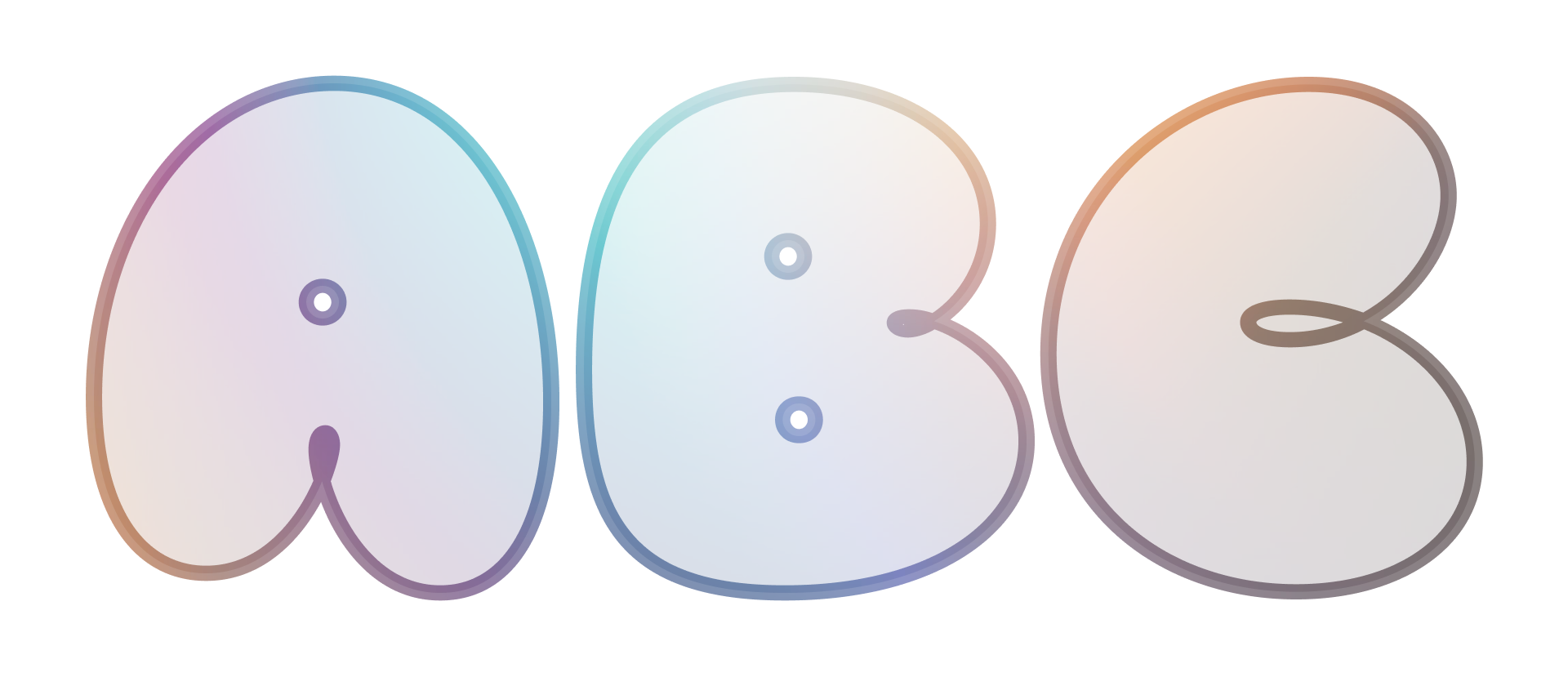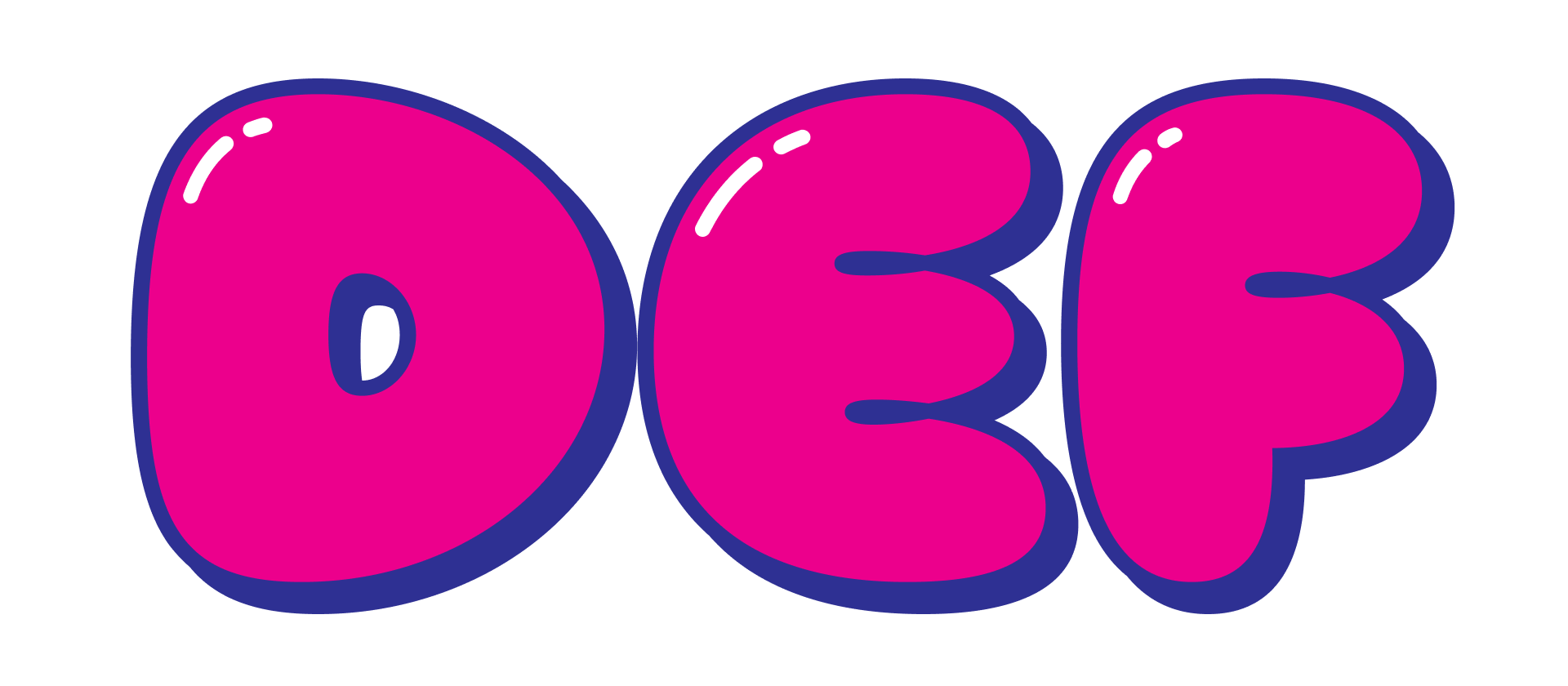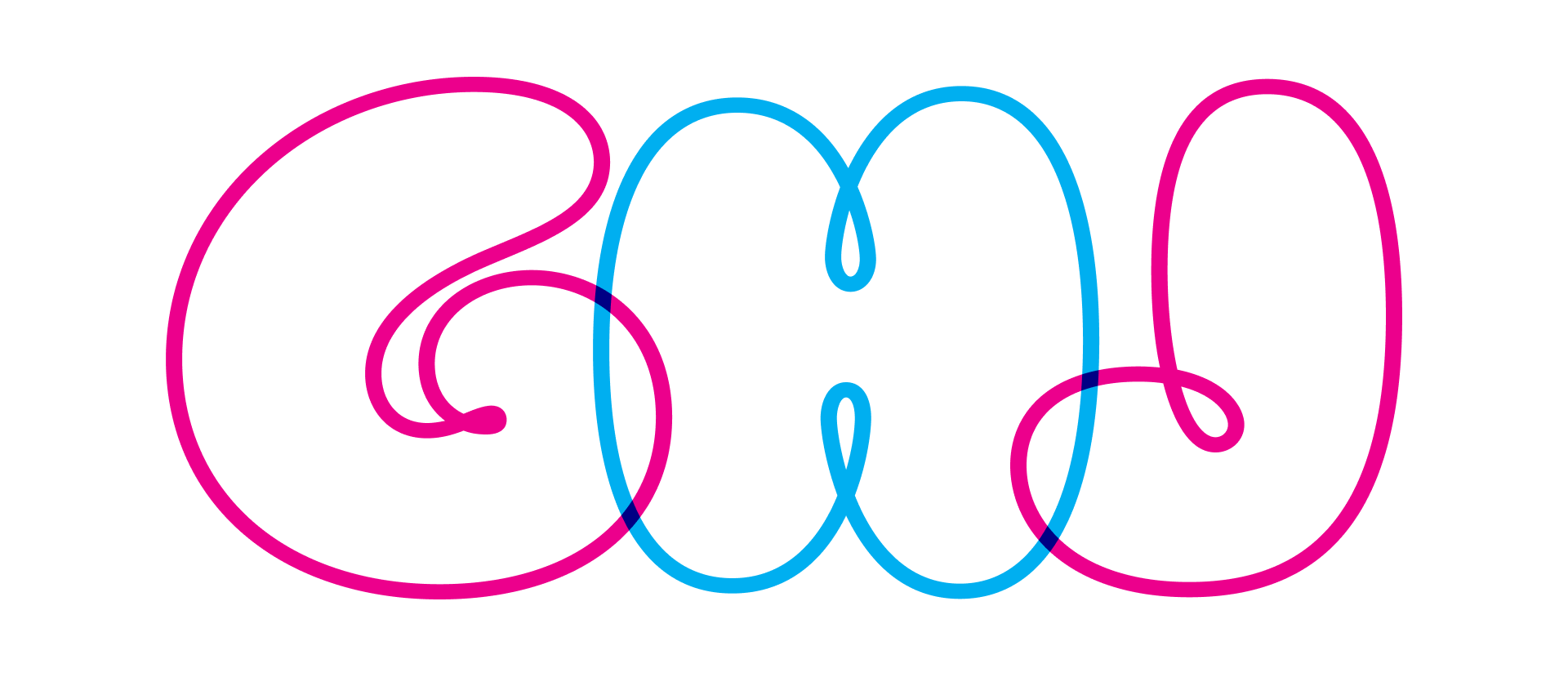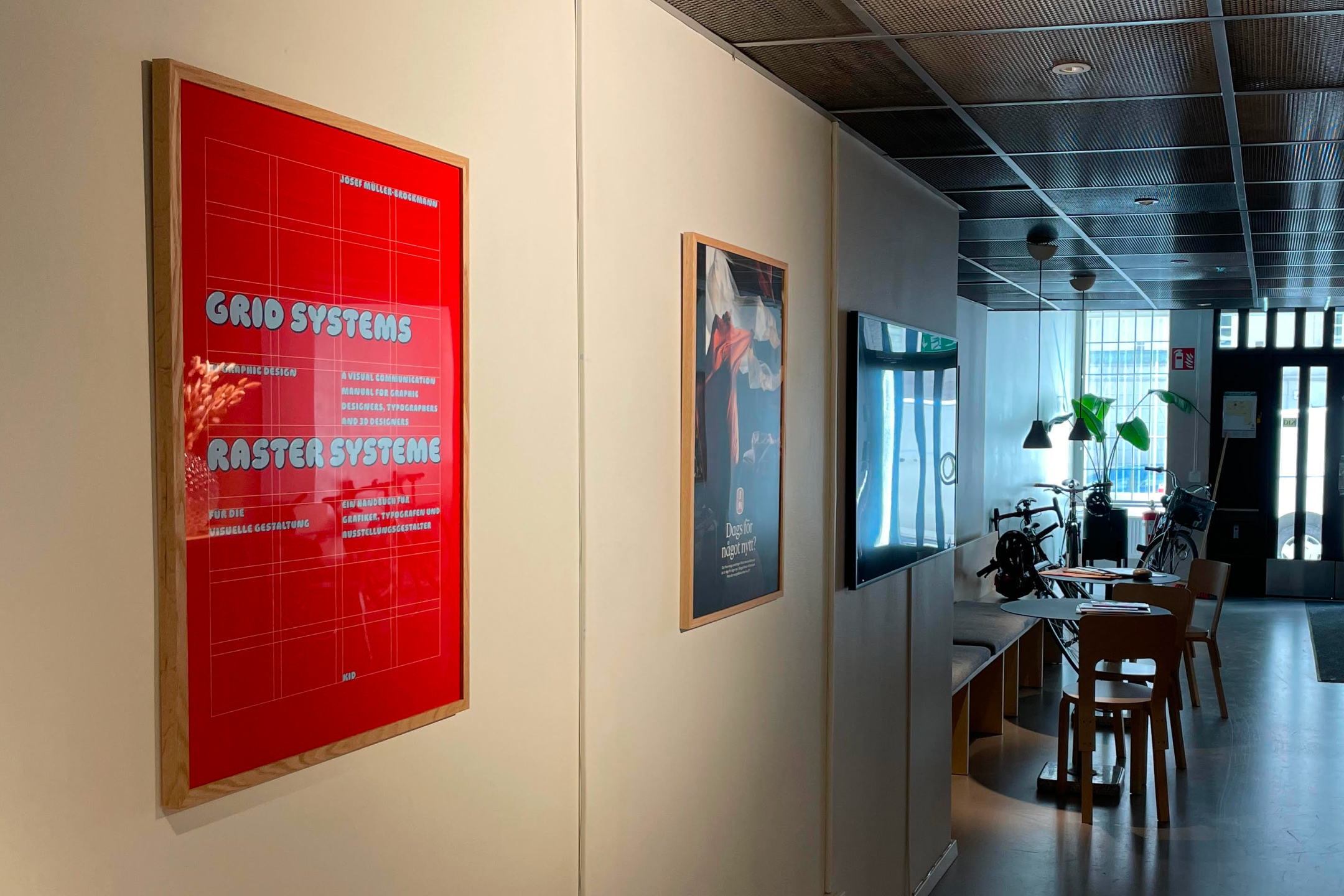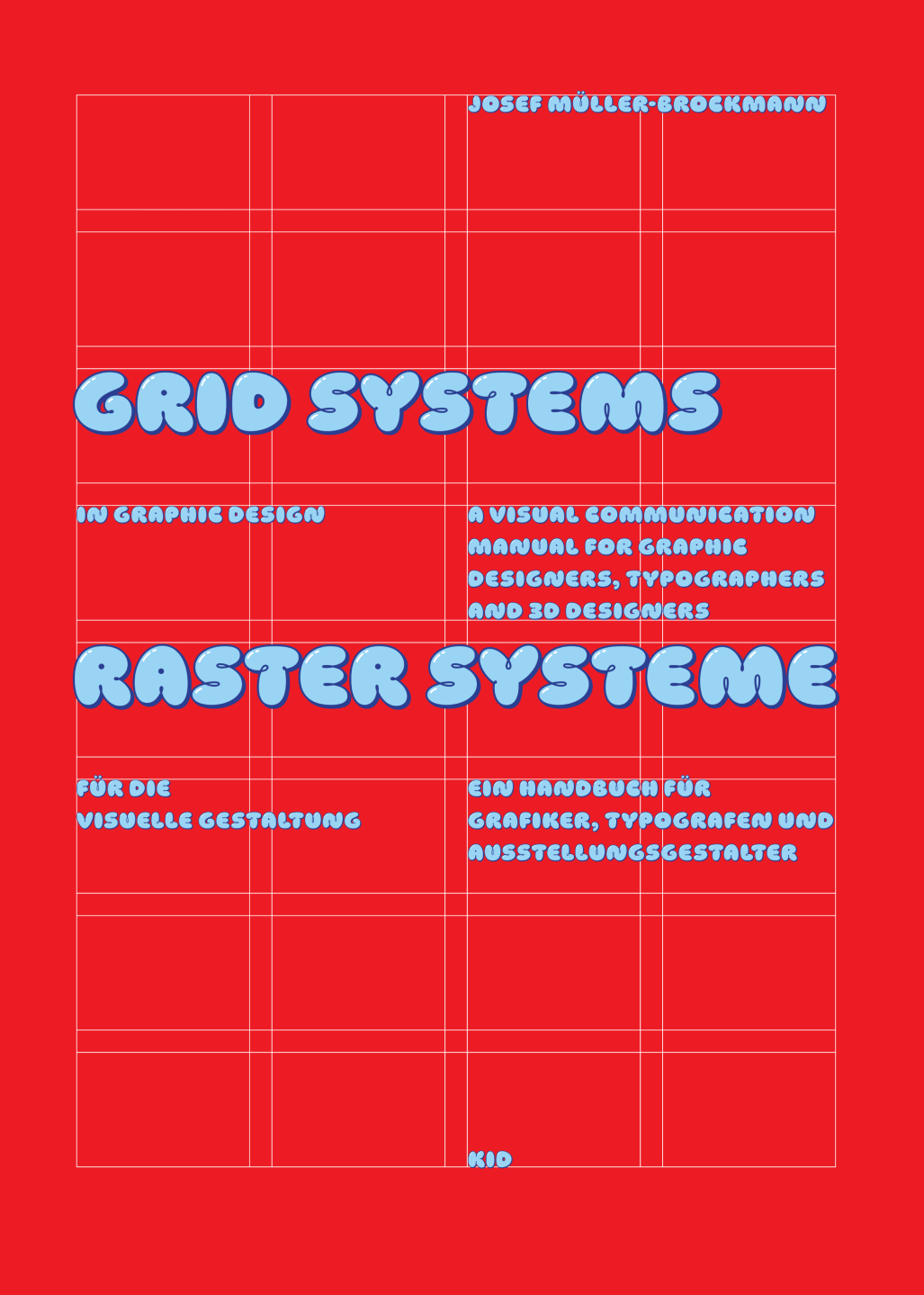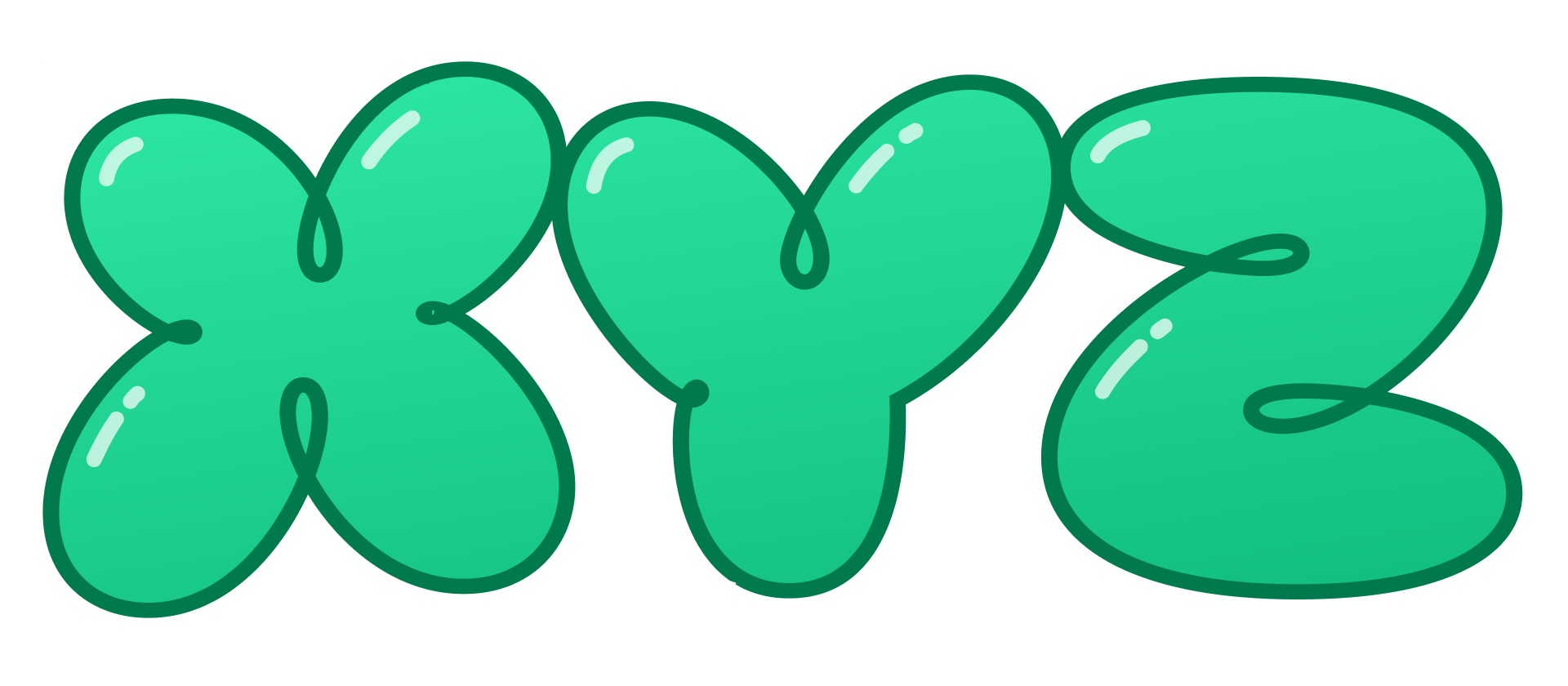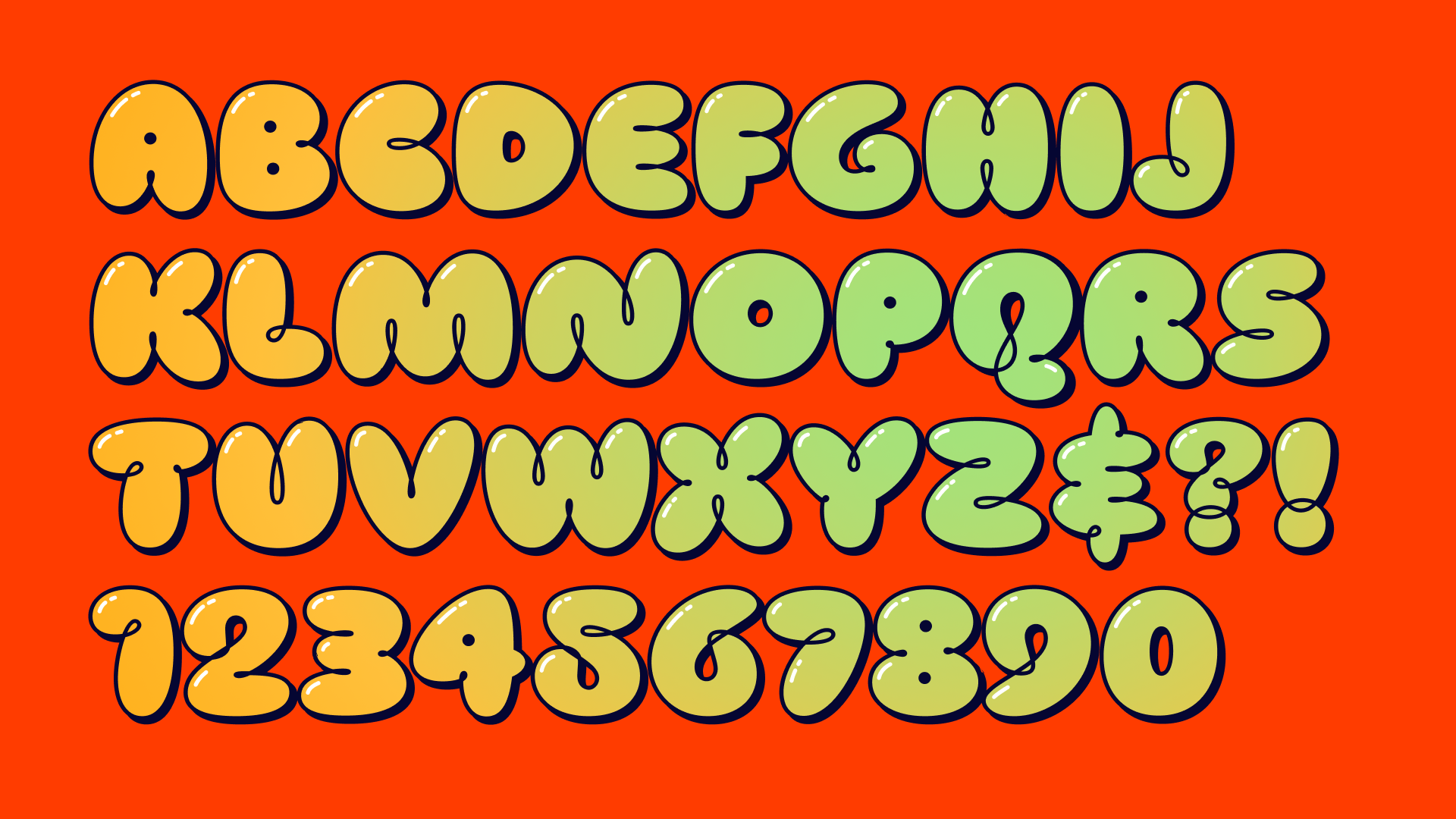
Main characters of the typeface Loopy Main characters of the typeface Loopy
Loopy
Loopy captures a kind of bubbly lettershapes that are familiar from comics, stickers and street art, but rarely seen in serious typography, and rarely given the attention to detail that they deserve. Systematically irregular, with sometimes looping outlines, Loopy is happily ignorant about logic or typographic etiquette.
Loopy is a layered color typeface. You can combine styles with outline, highlight, shadow and fill, and set them in any colors you like.
The letters 'ABC' in the typeface Loopy The letters 'DEF' in the typeface Loopy The letters 'GHJ' in the typeface Loopy The letters 'XYZ' in the typeface Loopy
Photo of a poster set in the typeface Loopy. The poster is shown in more detail in the following image. Poster set in the typeface Loopy. It’s a pastiche of the cover for Joseph Müller-Brockmann’s classic book 'Grid systems in graphic design'.